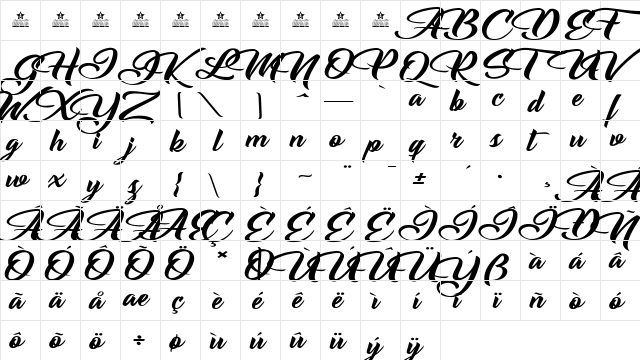
Emotional Rescue Regular
| Foundry | Billy Argel |
| Designer | Billy Argel |
Design Context for Emotional Rescue Typeface
Emotional Rescue is a composed and adaptable typeface that performs quietly and consistently across a wide range of design contexts.